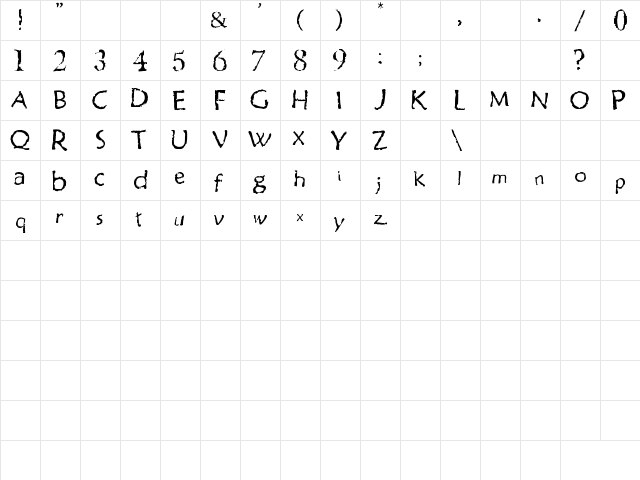
loserboi 03 Regular
| Designer | kevin thomas / loserboi |
loserboi 03 is a composed and adaptable typeface that performs quietly and consistently across a wide range of design contexts.